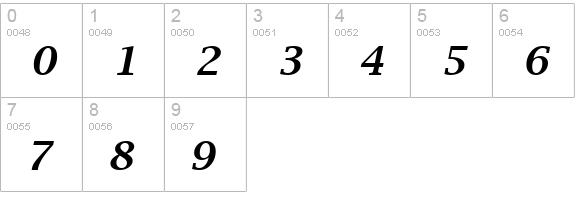
Lucida Bright Demibold Italic is a sub-bold, structured, italic variant in the Lucida typeface family \xE2\x80\x94 well suited to sub-headlines and emphasised passages.
The Lucida Bright Demibold Italic font exudes elegance and sophistication with its bold yet graceful design. This striking typeface features a perfect balance of weight and slant, making it ideal for adding a touch of flair to any project. The italicized characters convey a sense of style and movement, making your text stand out beautifully. What makes Lucida Bright Demibold Italic font even more appealing is that it is available for free download at FontsMarket.com. This means you can easily access this stunning font to enhance your designs without any cost. Whether you're creating invitations, posters, or branding materials, this font will bring a touch of class and professionalism to your work. Don't miss out on the opportunity to elevate your designs with the Lucida Bright Demibold Italic font, available for free at FontsMarket.com.